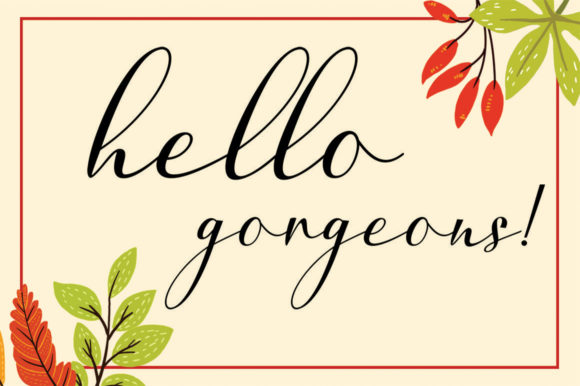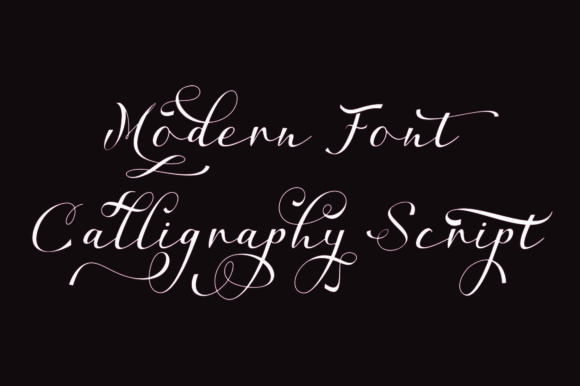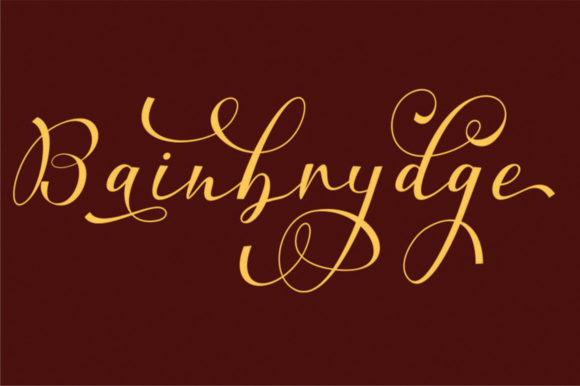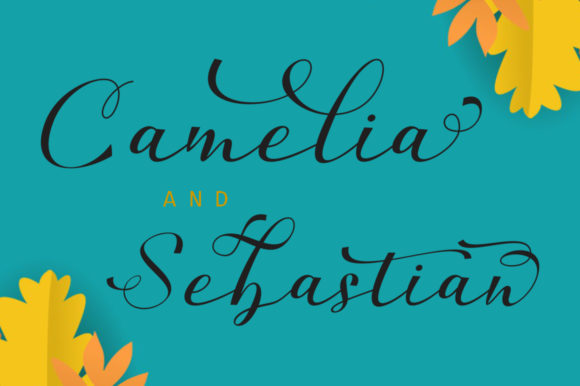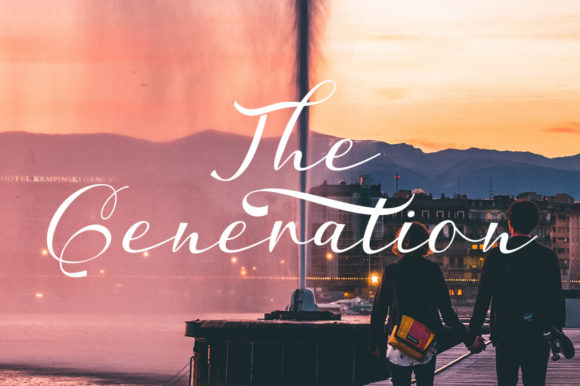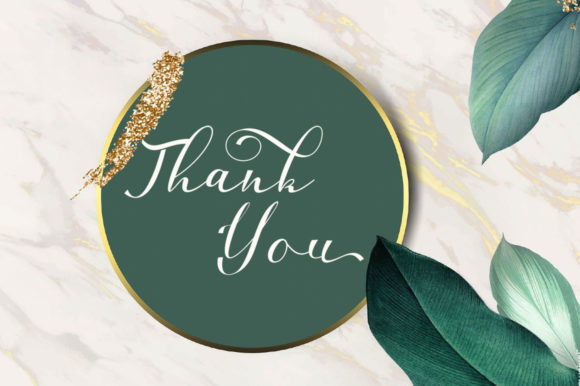
Introduction to Cimberleigh Script Font
Cimberleigh Script is an elegant script font with a contemporary atmosphere and impeccable form, inspired by timeless classic calligraphy.
It is PUA encoded which means you can access all of the glyphs and swashes with ease .
Key Features of Cimberleigh Script Font